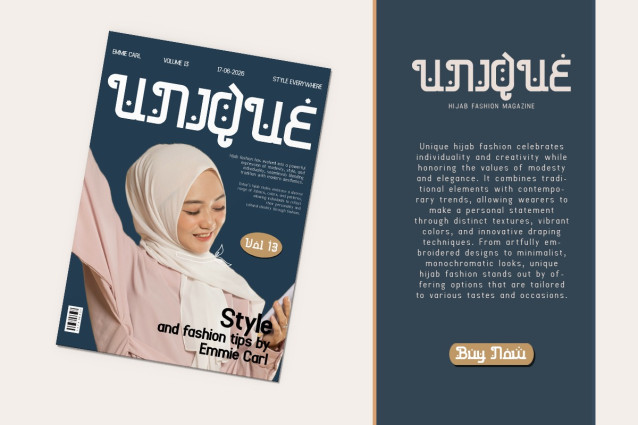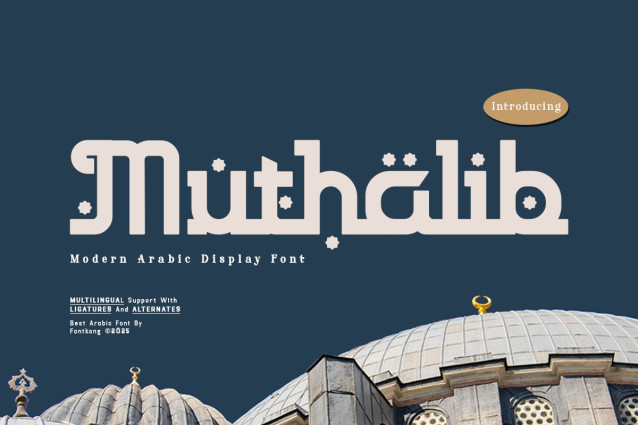
Muthalib Font
Muthalib Font A Modern Arabic Font Muthalib A Modern Arabic Font provides a new look that is different from the general fonts. This font is modern, simple, and beautiful. It can also be used as an elegant and modern font. Muthalib A Modern Arabic Font has many matches when combined with the product to be used. Fashion brand tags such as clothing will work well with this typeface. There is no need to add excessive pictures and ornaments because the Muthalib A Modern Arabic Font has presented its identity where a simple yet elegant impression radiates. Muthalib A Modern Arabic Font is a typeface that can be used as digital fonts and print fonts. This font can be used as a title for intro videos that catch the viewer’s attention at a first impression. Posters and magazine covers work especially well when using the Muthalib A Modern Arabic Font. This is because this font looks so pretty when combined with a beautiful color preview. Muthalib A Modern Arabic Font is one of the best modern Arabic fonts. Our Display fonts collection is compatible for use as; Figma Fonts, Canva Fonts, Freepik Fonts, and Adobe Fonts. They also work as Windows Fonts and Apple Fonts. For your social media needs, you can use and install fonts in our Serif font collection to use as Instagram Fonts, Facebook Fonts, and Twitter Fonts.